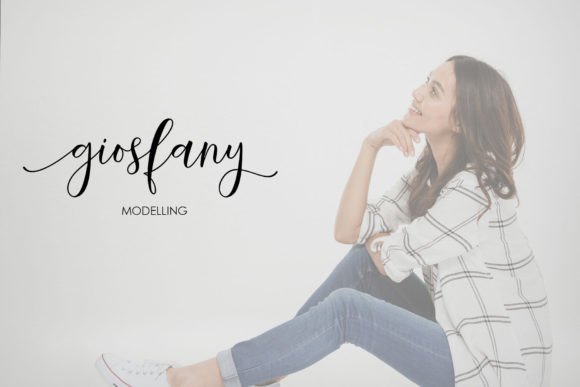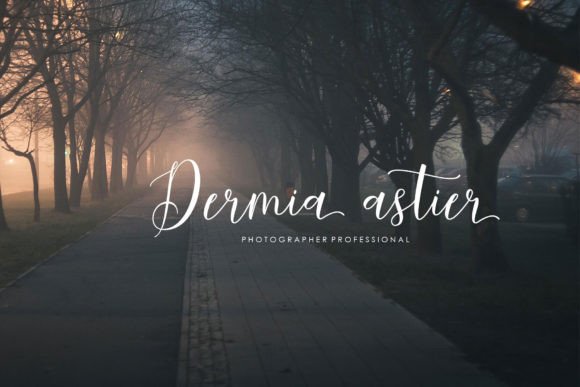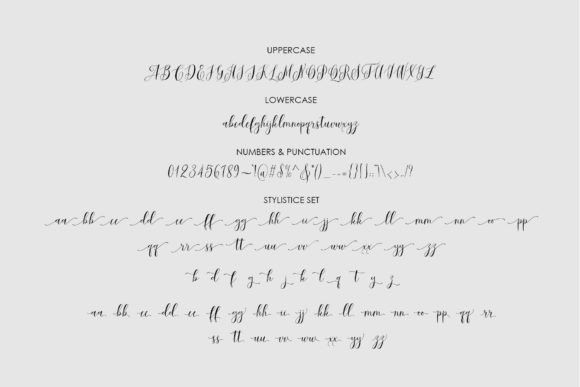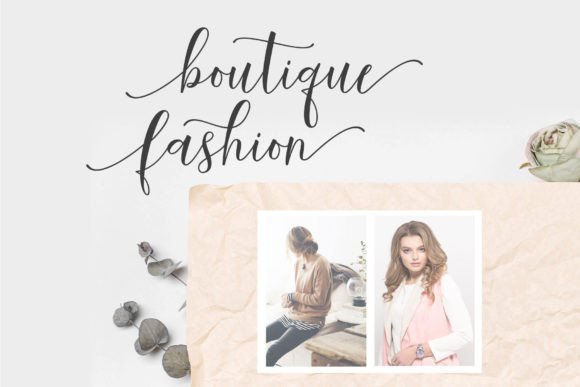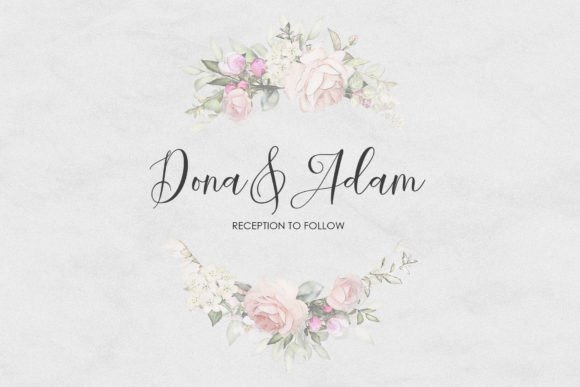
Introducing Constant Font: Elevate Your Designs with Chic Sophistication
Are you tired of using the same old fonts in your designs? Do you want to add a touch of elegance and sophistication to your projects? Look no further than Constant Font, a beautiful script font that embodies chic sophistication with its elegant ligatures. In this article, we’ll explore the features and benefits of Constant Font, and how it can elevate your creative endeavors to new heights.
What is Constant Font?
Constant Font, also known as Constant Script, is a stunning script font that is perfect for a wide range of projects. Its elegant ligatures and flowing lines make it an ideal choice for designs that require a touch of sophistication and glamour. Whether you’re creating a logo, wedding invitation, social media post, advertisement, or product packaging, Constant Font is the perfect companion to help you achieve your creative vision.
Key Features of Constant Font
- Elegant Ligatures: Constant Font features beautiful ligatures that add a seamless handwritten touch to your designs. These ligatures are carefully crafted to create a natural flow, making your text look like it was written by hand.
- PUA Encoding: Constant Font comes with PUA (Private Use Area) encoding, which grants you effortless access to an array of amazing glyphs and ligatures. This means you can easily insert special characters and swashes into your text to add more flair and personality.
- Versatility: Constant Font is an incredibly versatile font that can be used for a wide range of projects, from logos and wedding designs to social media posts, advertisements, and product packaging.
Benefits of Using Constant Font
So why choose Constant Font for your next project? Here are just a few benefits of using this stunning script font:
- Adds a Touch of Elegance: Constant Font adds a touch of elegance and sophistication to your designs, making them stand out from the crowd.
- Easy to Use: With its PUA encoding, Constant Font is easy to use, even for those who are new to font design.
- Increases Creativity: The elegant ligatures and glyphs in Constant Font can help inspire your creativity, allowing you to come up with unique and innovative design ideas.
- Perfect for Branding: Constant Font is perfect for branding projects, as it can help create a consistent and recognizable visual identity for your business or brand.
How to Use Constant Font in Your Designs
Using Constant Font in your designs is easy. Here are a few tips to get you started:
- Pair it with Other Fonts: Constant Font pairs well with other fonts, so don’t be afraid to experiment with different combinations to find the perfect look for your project.
- Experiment with Ligatures: The ligatures in Constant Font are one of its standout features, so be sure to experiment with different ligatures to add more flair to your text.
- Use it for Headings and Titles: Constant Font is perfect for headings and titles, as its elegant ligatures and flowing lines make it easy to read and visually appealing.
In conclusion, Constant Font is a stunning script font that embodies chic sophistication with its elegant ligatures. With its PUA encoding, versatility, and ease of use, it’s the perfect companion for a wide range of projects. Whether you’re a designer, crafter, or DIY enthusiast, Constant Font can help elevate your creative endeavors to new heights. So why wait? Unlock the full potential of Constant Font today and leave a lasting impression with your designs!
Unlock the Full Potential of Constant Font
Ready to take your designs to the next level with Constant Font? Here are a few final tips to help you unlock its full potential:
- Practice and Experiment: The more you use Constant Font, the more comfortable you’ll become with its features and capabilities. Don’t be afraid to experiment and try new things.
- Use it in Different Contexts: Constant Font can be used in a wide range of contexts, from digital designs to print materials. Experiment with different applications to see how it performs.
- Combine it with Other Design Elements: Constant Font can be combined with other design elements, such as images and graphics, to create stunning visual effects. Don’t be afraid to get creative and try new things.
With these tips and a little practice, you’ll be well on your way to unlocking the full potential of Constant Font and taking your designs to new heights. So what are you waiting for? Get started today and see the amazing things you can create with Constant Font!